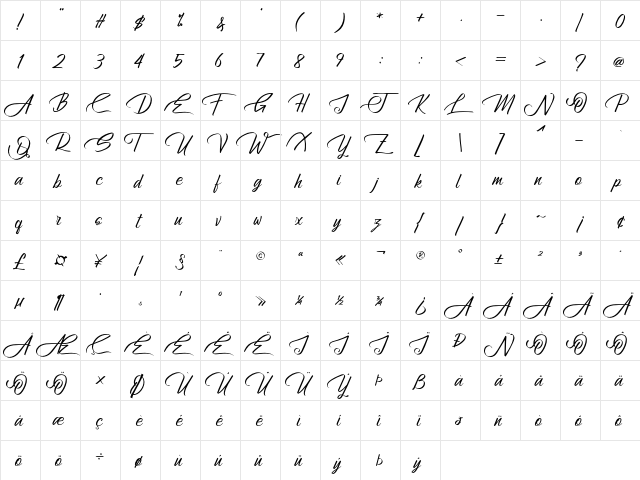
Atziluth Script
| Style | Script |
| Foundry | Motokiwo |
| Designer | Motokiwo |
Design Context for Atziluth Typeface
Atziluth flows with the natural rhythm of handwritten lettering, making it ideal for designs that call for warmth and personal expression.
Font Pairing: Combine Atziluth with a simple geometric sans for maximum contrast — the tension between flowing curves and clean structure is a classic typographic pairing.
Pro Tip: Use Atziluth for short runs of text — names, titles, or taglines. Extended body copy in script faces tires the eye quickly.